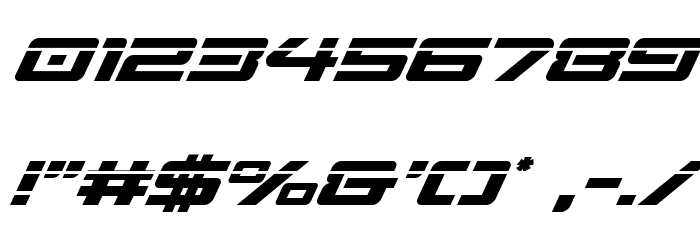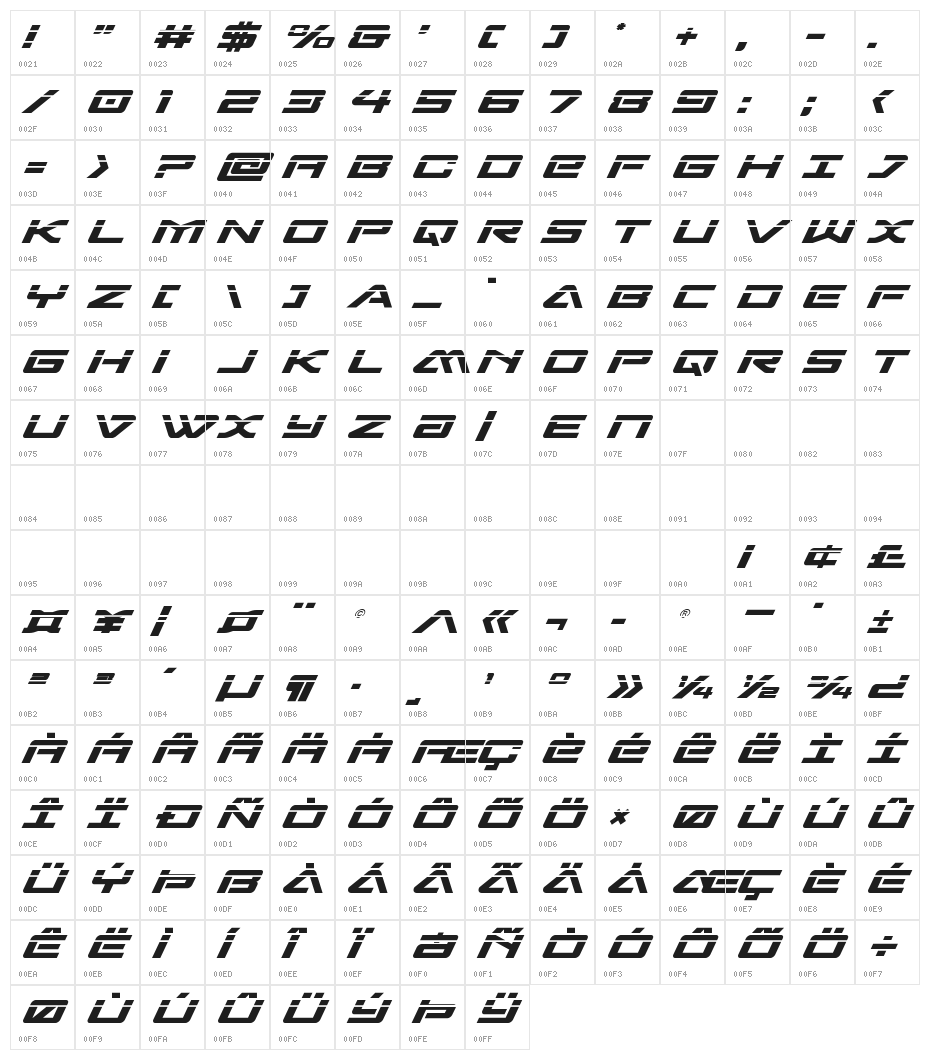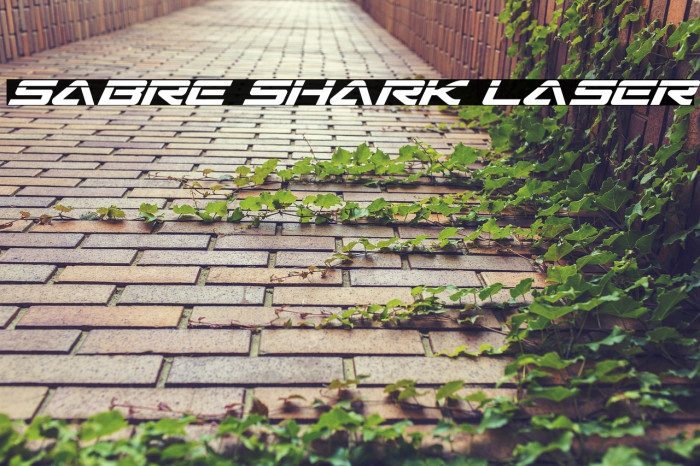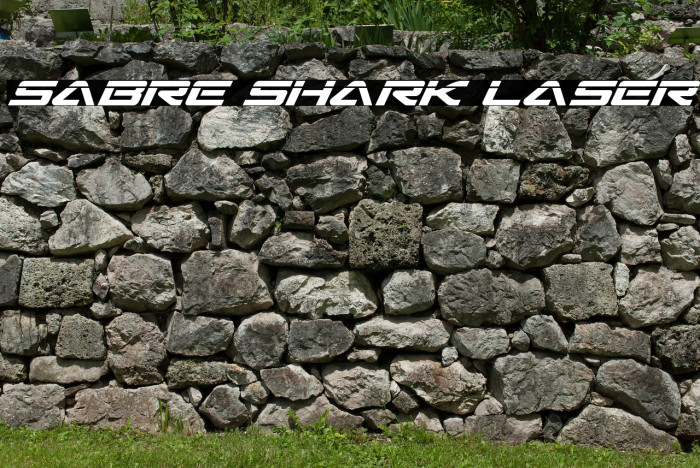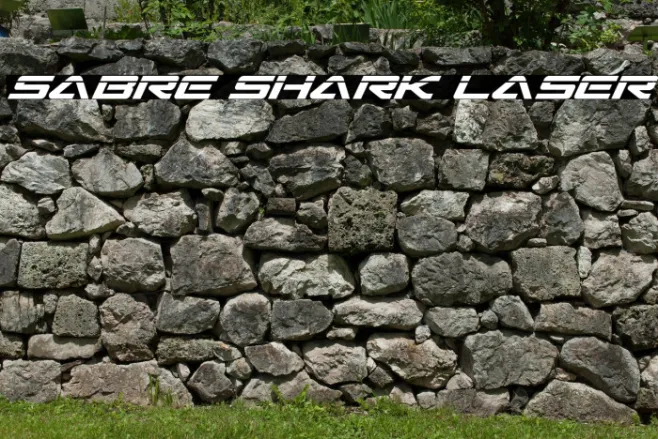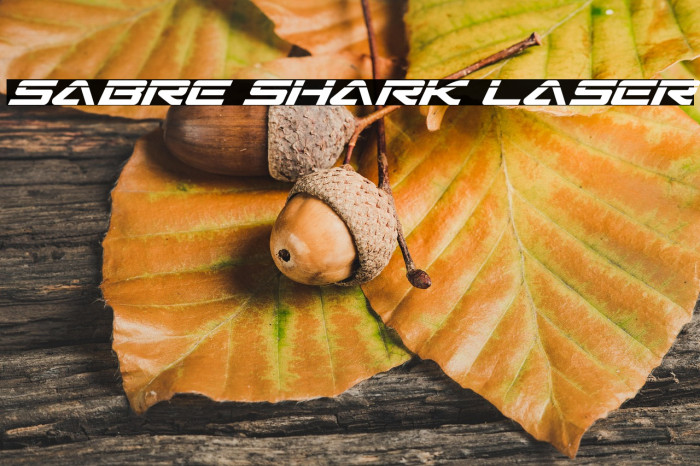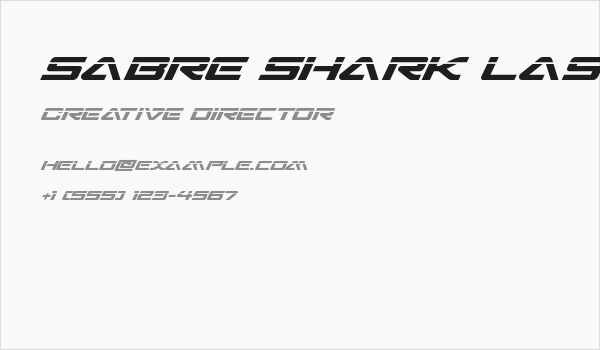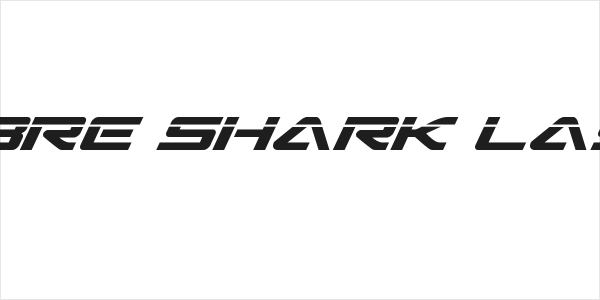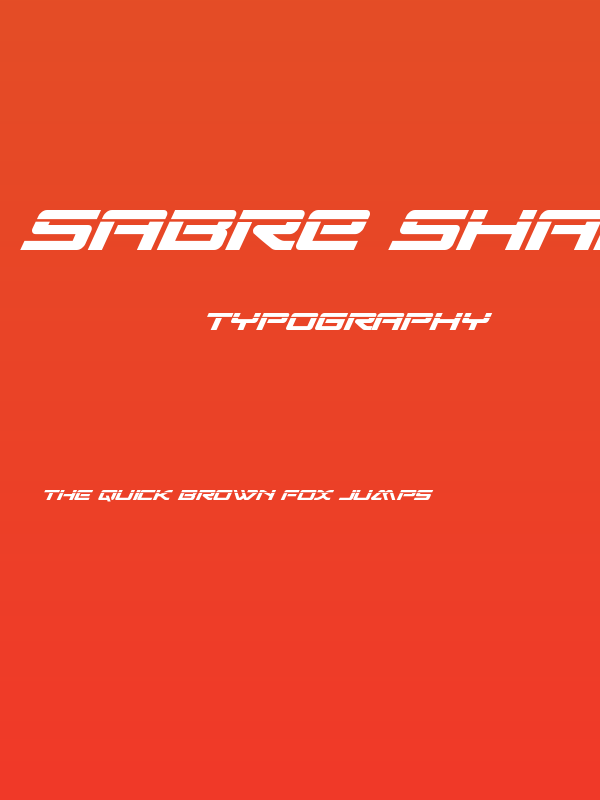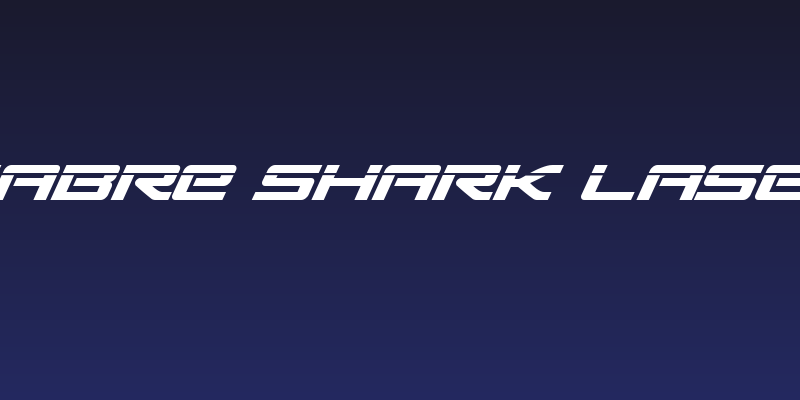
Sabre Shark Laser Font
Sabre Shark Laser Description
This font features a futuristic and angular design, characterized by its sharp edges and geometric shapes. The letters are slanted, giving a sense of motion and speed, reminiscent of high-tech or sci-fi themes. The uppercase and lowercase letters maintain a consistent style, with bold strokes and a uniform thickness throughout. The numbers and special characters follow the same aesthetic, ensuring a cohesive look across all glyphs. The font's unique style makes it stand out, suitable for projects that require a modern and edgy appearance.
| Proposed Projects | Ideal for sci-fi movie posters, video game titles, tech branding, and futuristic event flyers. |